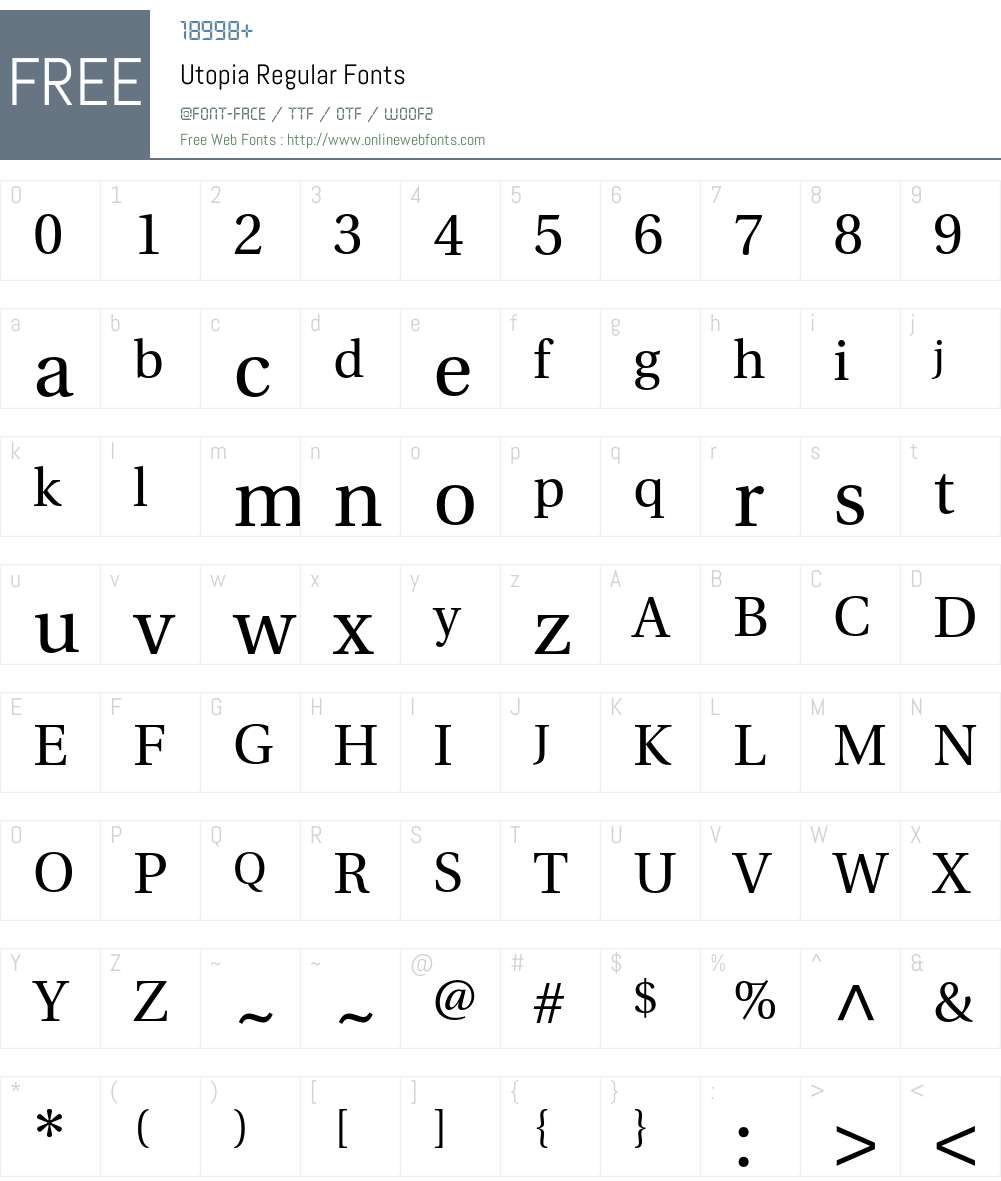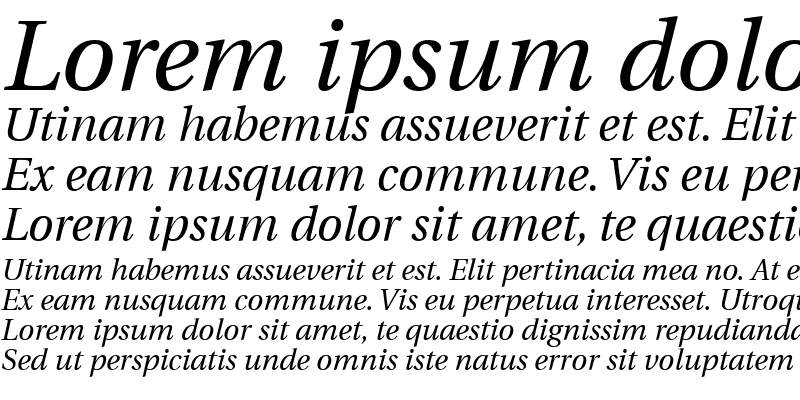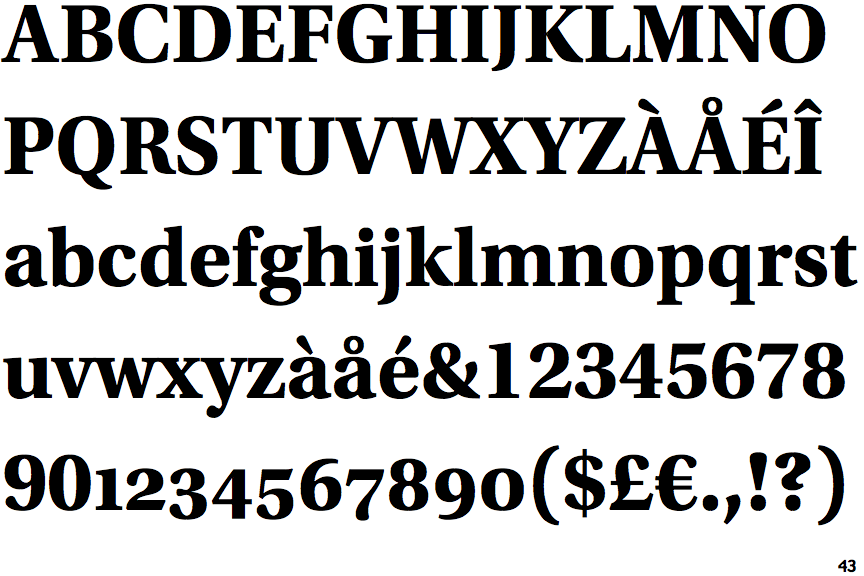
Utopia Font
Utopia font. You can find over 59 other semibold fonts on fontsup. The utopia font family is an adobe originals didone serif typeface that was designed by adobe systems employee robert slimbach in 1989. Custom fonts preview save settings utopia blackotf utopiaexp blackotf utopia blackosfotf utopia bolditalicotf.
The utopia type available for desktop use. Explore utopia designed by robert slimbach at adobe fonts. Custom fonts preview save settings utopiastd blackheadlineotf utopiastd boldcaptotf utopiastd boldcaptitotf.
Design utopia qualifies as a transitional serif typeface. Utopia std 10 reviews categories various files. The adobe originals program started in 1989 as an in house type foundry at adobe brought together to create original typefaces of exemplary design quality technical.
One based on 18th and early 19th century ideals of classical design. Adobes release notes cite baskerville and walbaum as influences and adobes sumner stone has also compared it to hermann zapfs melior. This font is in the semibold style.